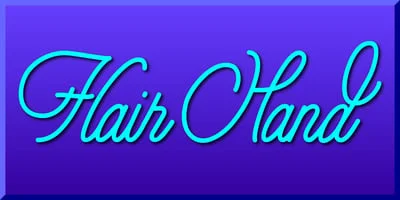
Flair Hand Font
Flair Hand Font is ideal for artistic studio branding, creative workshop signage, handmade craft packaging, artisan boutique marketing, calligraphy class materials, custom invitation design, personal branding for artists, bespoke stationery collections, handwritten quote graphics, and any sophisticated project that celebrates the elegance of skilled penmanship and artistic flair.
What makes Flair Hand Font exciting is its sophisticated artistry that captures the confident elegance of master calligraphers and the expressive freedom of artistic hand lettering. This typeface embodies the perfect balance between disciplined technique and creative spontaneity with flowing letterforms that demonstrate both skill and personality. The font's artistic character makes it perfect for brands and projects that want to communicate craftsmanship, creativity, and the distinctive beauty of human touch in an increasingly digital world.
The Flair Hand Font family includes multiple weights and stylistic variations, featuring light, regular, and bold versions along with decorative swashes, flourishes, and alternate characters that showcase calligraphic expertise. This comprehensive collection allows designers to create sophisticated handwritten typography that maintains the font's signature artistic character while providing flexibility for various luxury and creative design applications.
When exploring premium handwritten typography, Flair Hand Font offers designers an exceptional opportunity to work with a typeface that authentically represents the pinnacle of calligraphic artistry and hand lettering excellence. This font demonstrates superior craftsmanship by capturing the natural flow and confident strokes that distinguish professional calligraphy from amateur handwriting, creating letterforms that feel genuinely crafted by skilled hands.
Professional designers appreciate Flair Hand Font for its ability to instantly establish artistic credibility and sophisticated craftsmanship across various media platforms. The font's elegant character makes it particularly effective for luxury brands, creative services, and artisan businesses seeking to communicate quality, authenticity, and the premium value of handcrafted excellence.
The timeless appeal of Flair Hand Font lies in its perfect representation of artistic skill and human creativity that continues to be valued in our digital age. This typeface serves as a celebration of traditional craftsmanship and the enduring beauty of skilled handiwork, making it invaluable for projects that want to honor artistic heritage while appealing to contemporary audiences.
For creative professionals working with artistic and luxury brands, Flair Hand Font represents the ultimate typography solution that brings authentic artistic flair and calligraphic excellence to any application, ensuring designs reflect the sophisticated craftsmanship and creative expertise that define true artistic mastery.